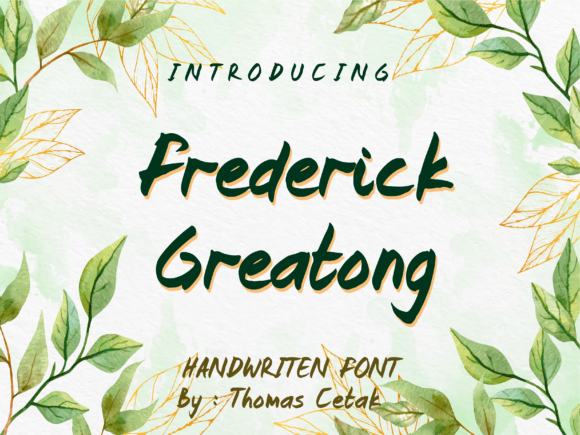
Frederick Greatong Font
Introducing Frederick Greatong Font, the handwritten masterpiece crafted to ignite your creativity. Its elegant curves and playful flourishes dance across the page, capturing the essence of artistic expression.
Delve into the world of web design with Frederick Greatong, your trusted companion for captivating headlines, mesmerizing logos, and unforgettable branding. Its enchanting characters add a touch of whimsy to your digital creations, leaving an indelible mark on your audience.
Frederick Greatong is not merely a font; it's an invitation to unleash your imagination. Its versatility knows no bounds, seamlessly transitioning from whimsical children's books to captivating comic covers and captivating photography themes. With Frederick Greatong, your creative vision takes center stage, commanding attention and leaving a lasting impression.
Whether you're a seasoned professional or embarking on your design journey, Frederick Greatong empowers you to elevate your creations with effortless style and emotional resonance. Its enchanting characters evoke a sense of nostalgia, warmth, and playfulness, creating designs that resonate with your audience on a deeper level.
Join the ranks of creative visionaries who have embraced Frederick Greatong as their font of choice. Let its enchanting characters guide you to design greatness and create masterpieces that capture hearts and imaginations.